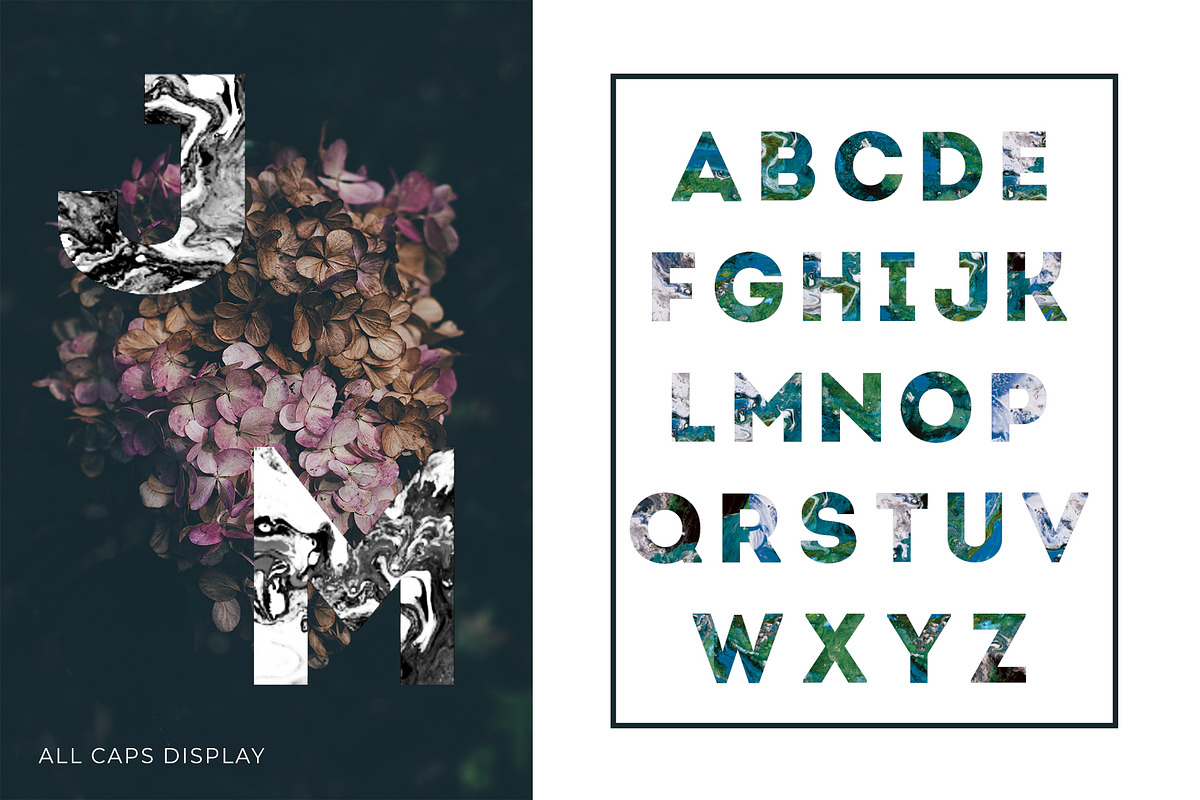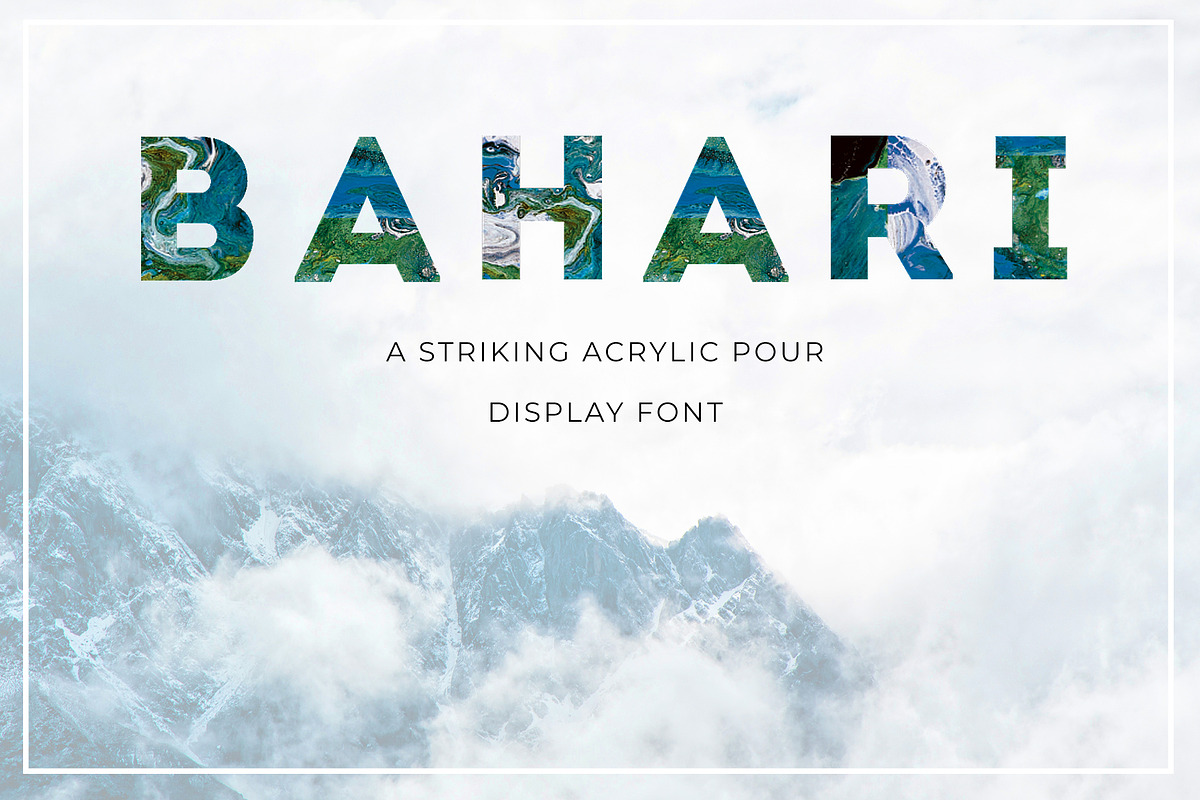
BAHARI Display Font
BAHARI is a bold handmade font that marries clean lines and acrylic dirty pours!
This .otf display font (all caps only) is quirky and refreshing, perfect for the spring and summer.
BAHARI Display Font by Jennifer Lauren Creative fits naturally into Branding, posters, packaging, typography.